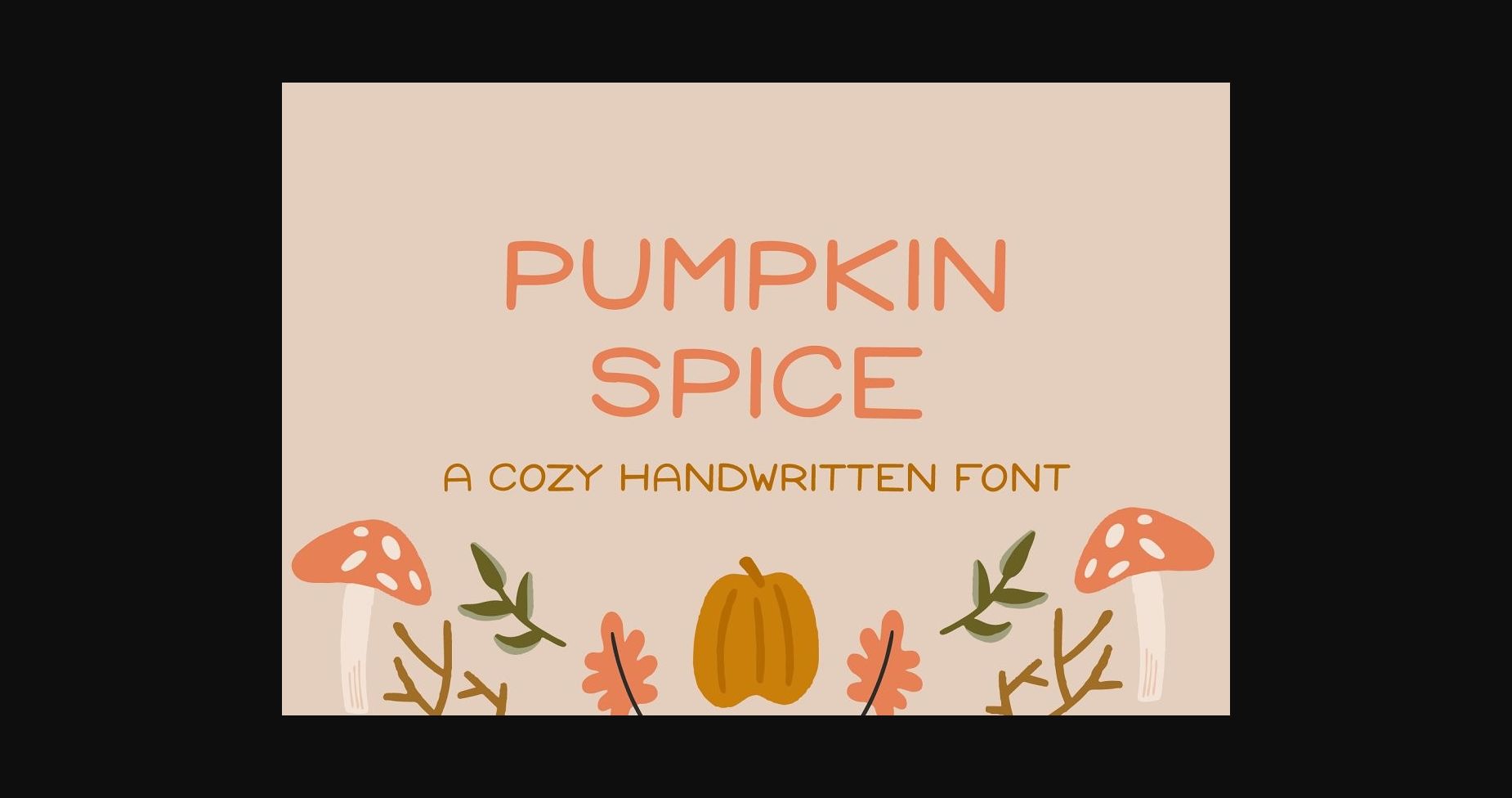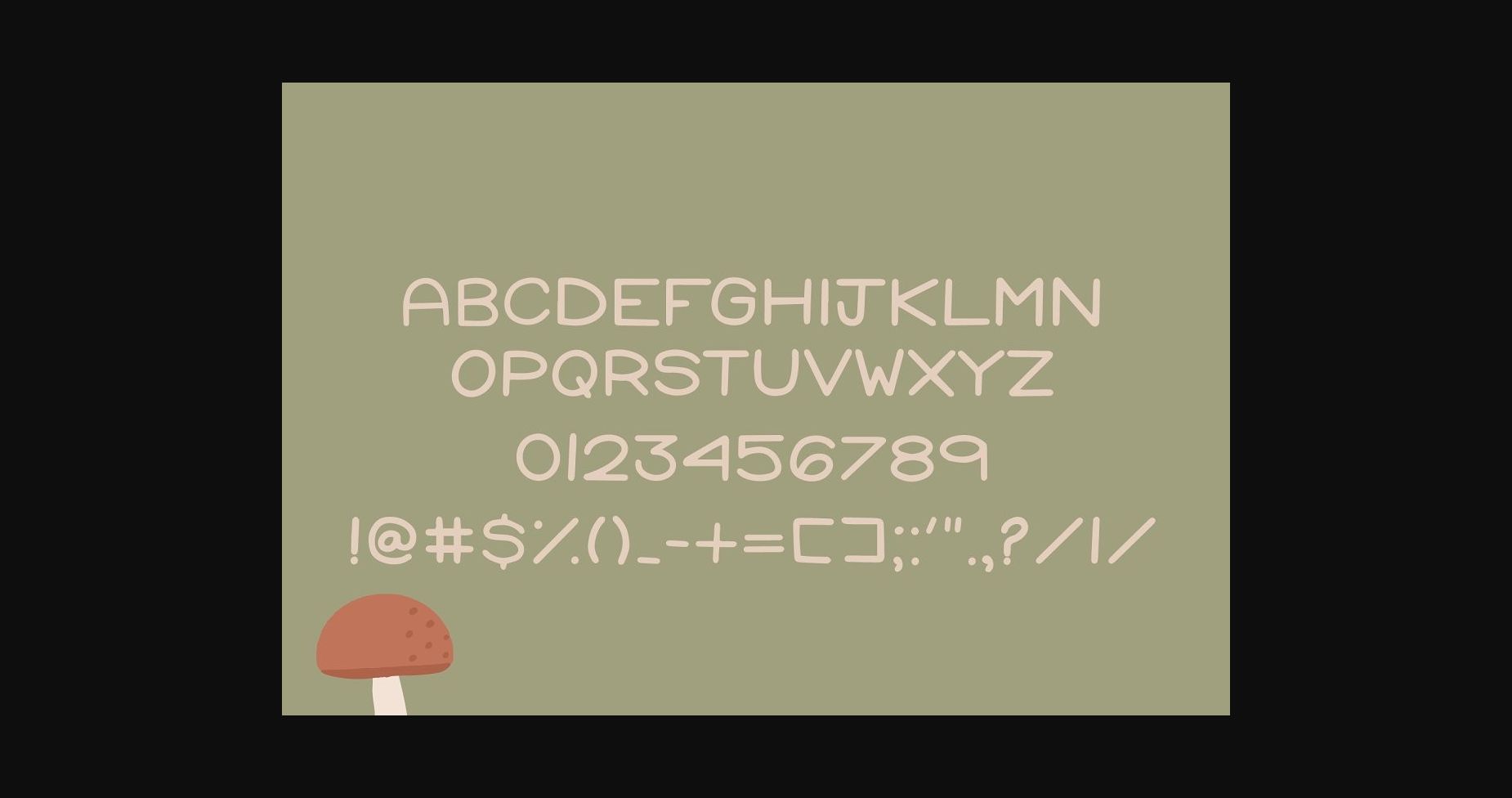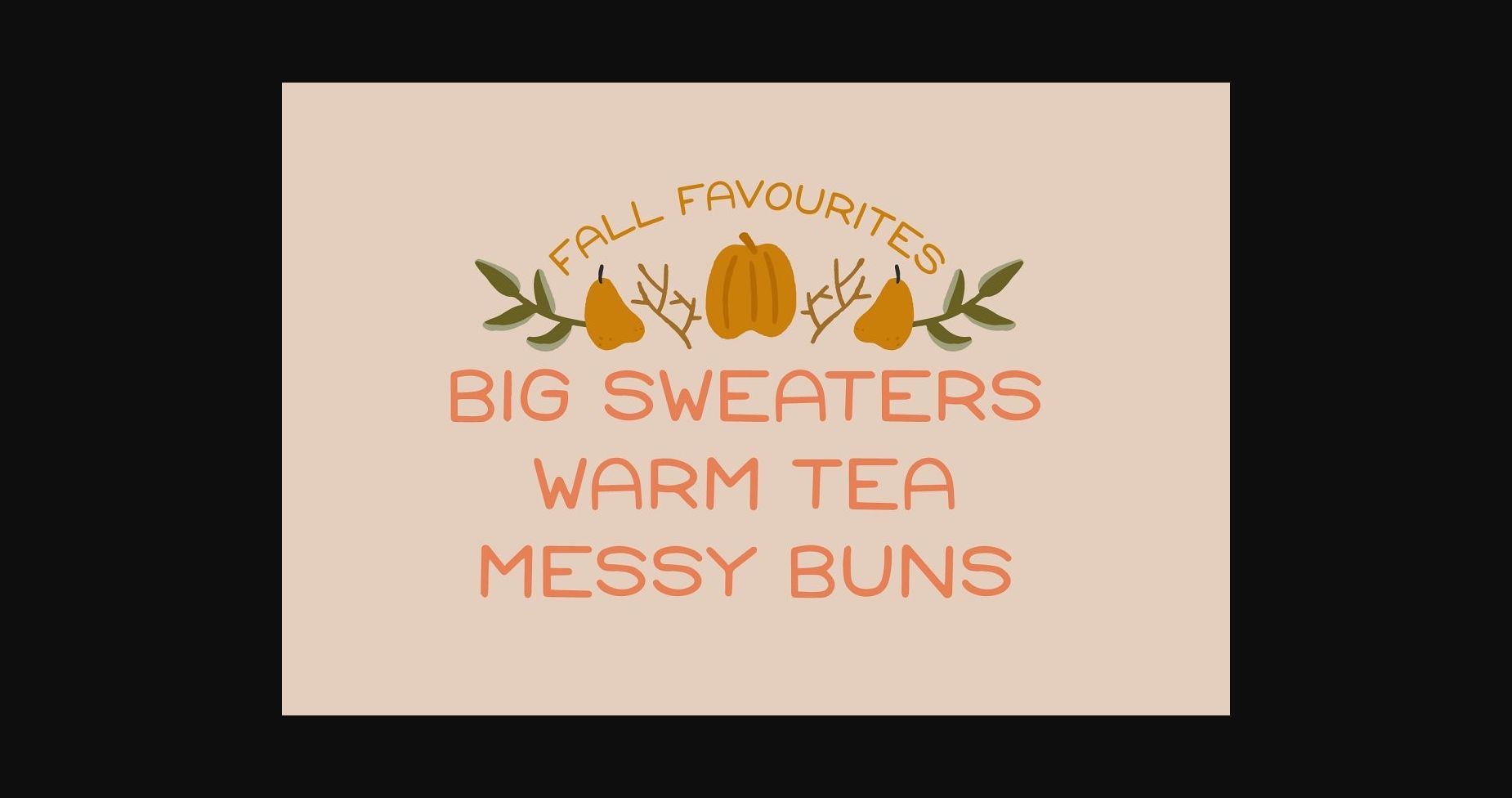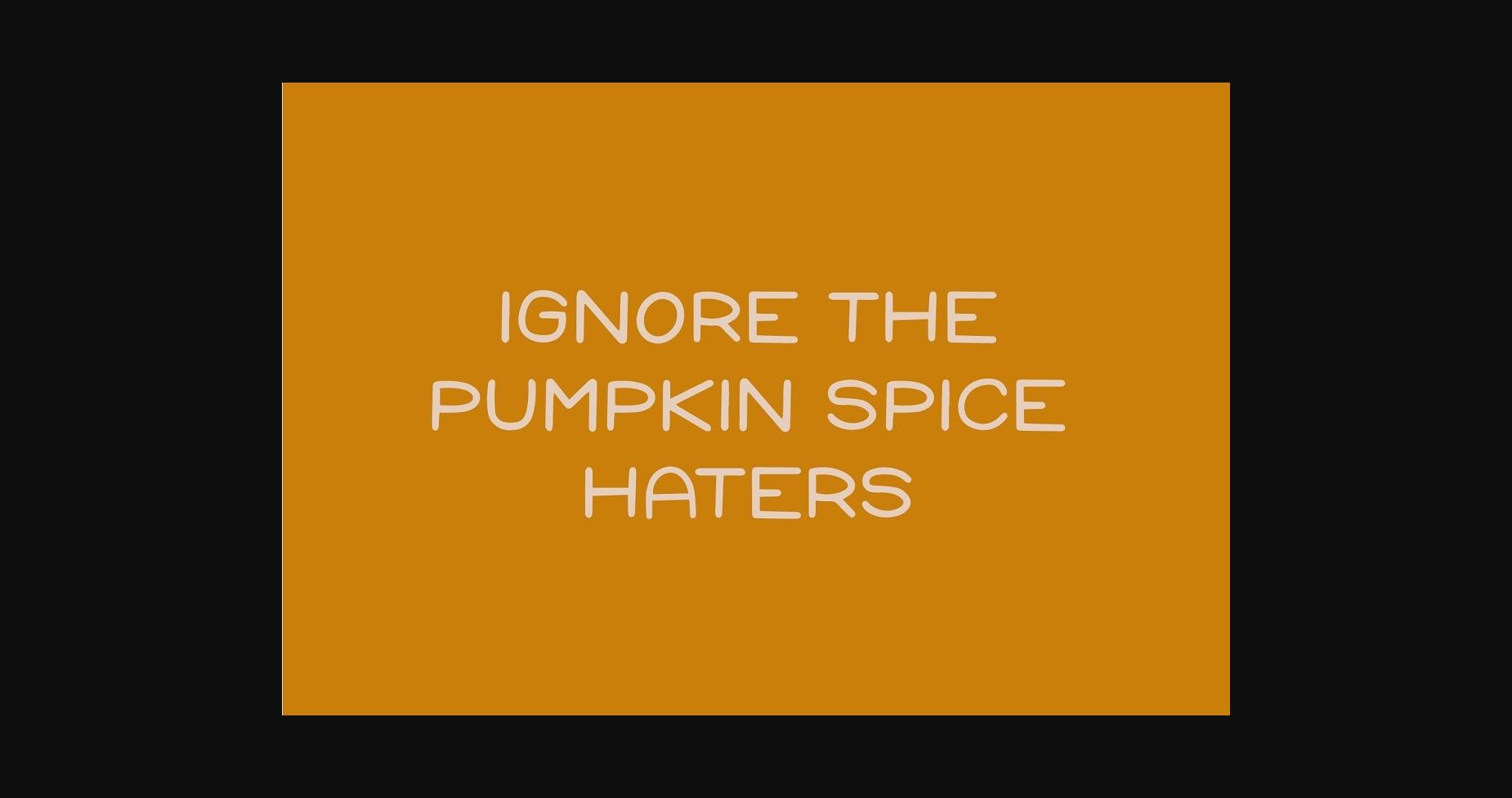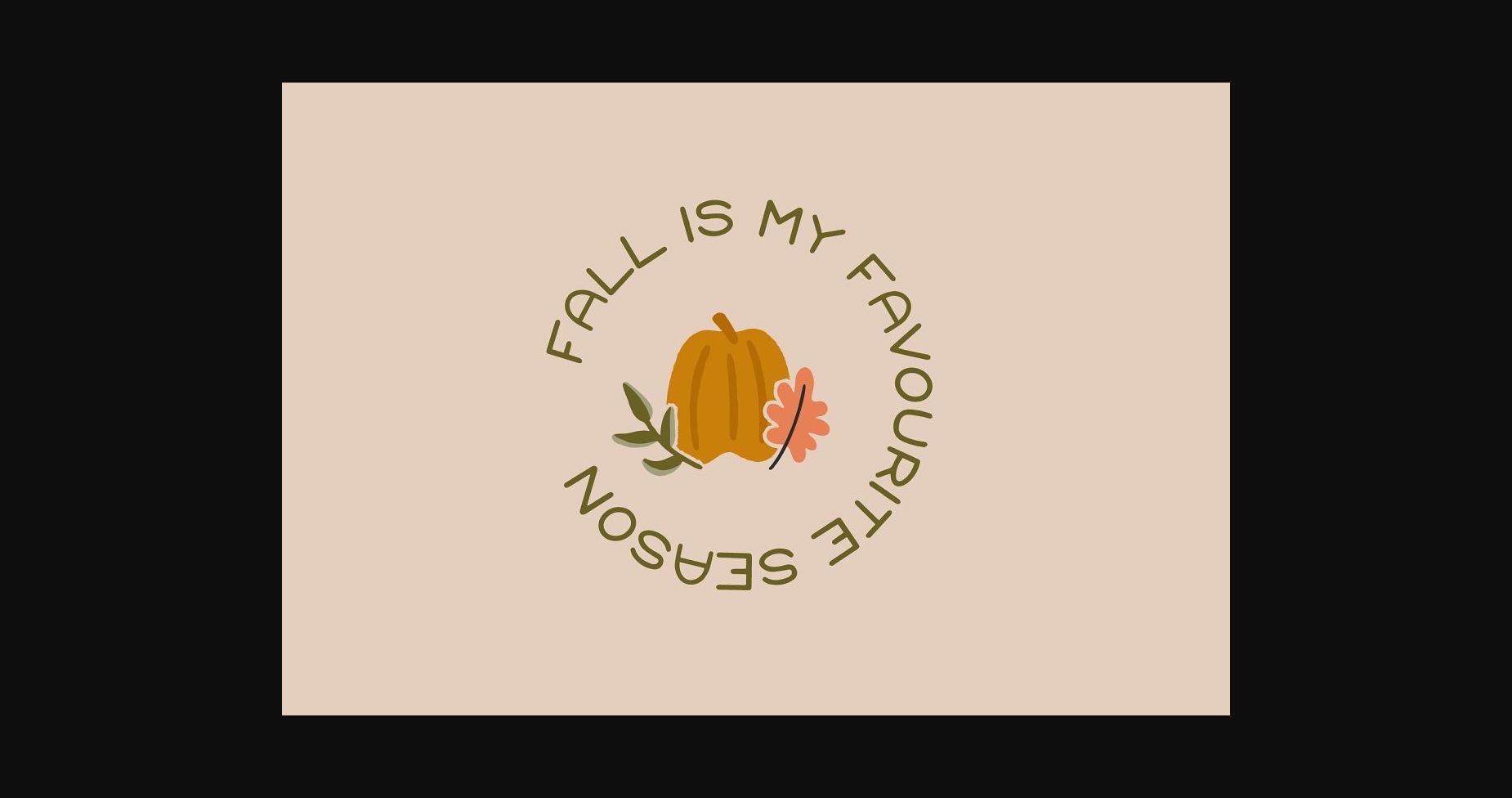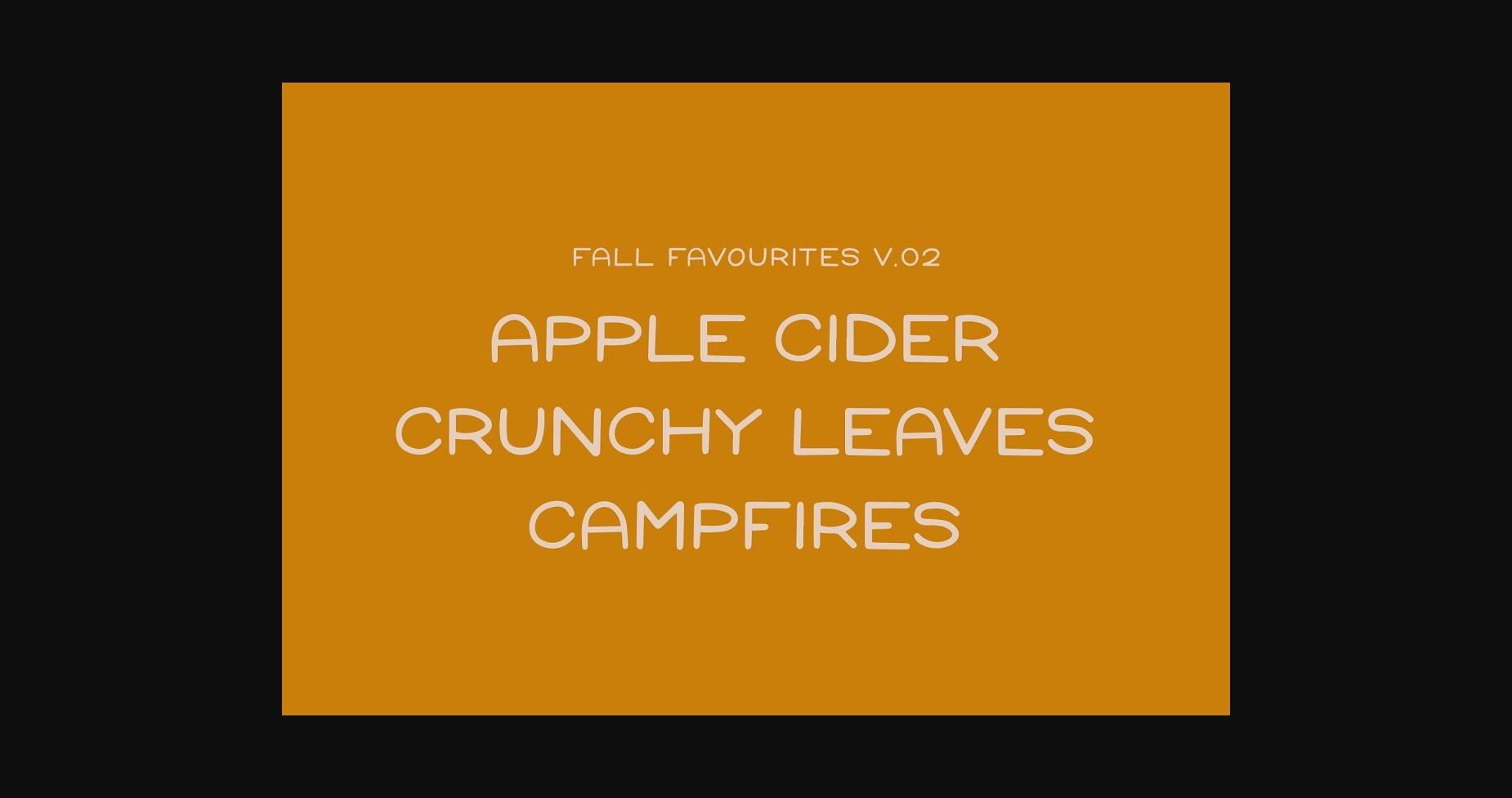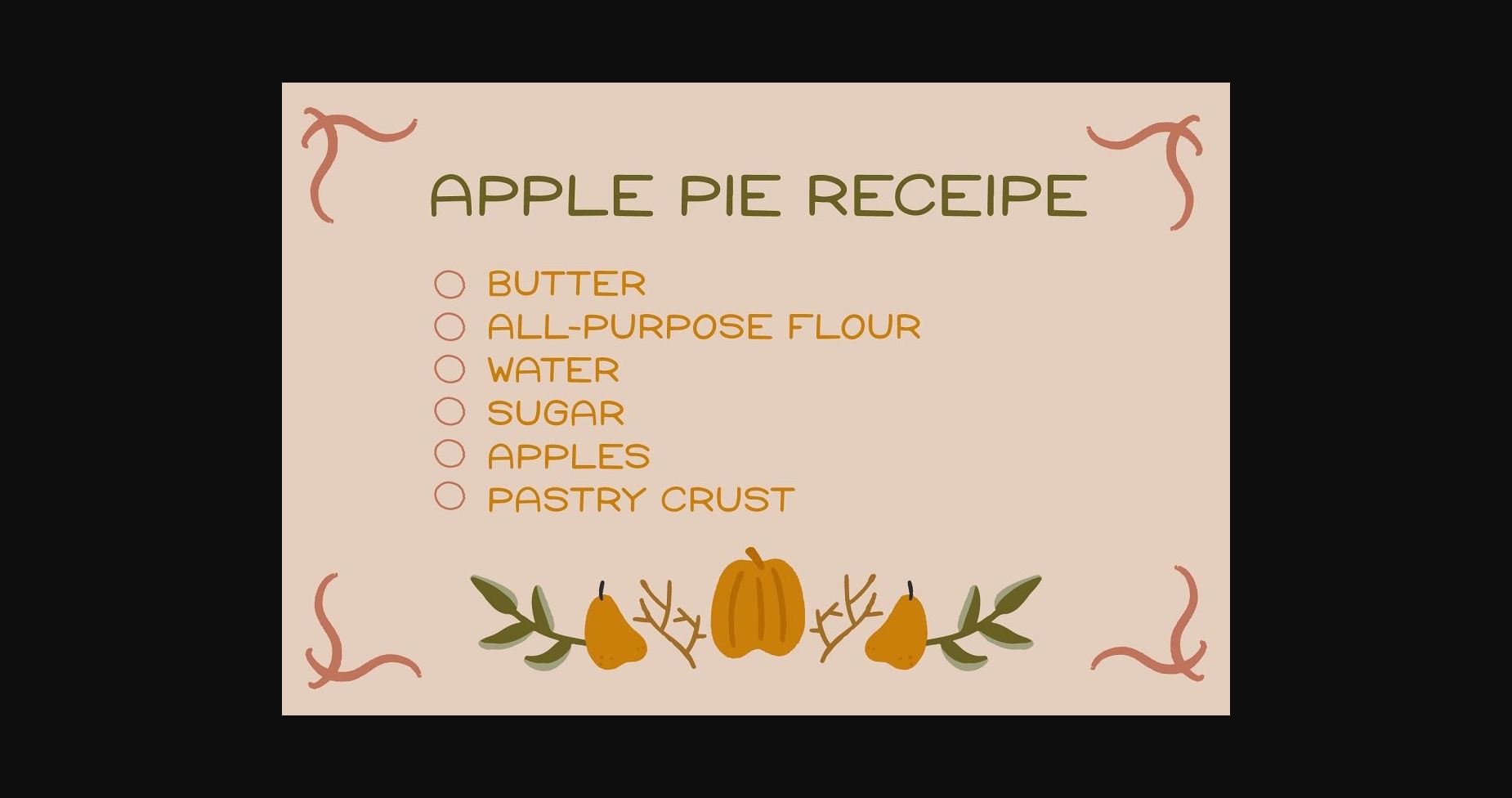
About Pumpkin Spice Font
Pumpkin Spice is a playful handwritten font that is perfect for adding a personal touch to your next project.
Pumpkin Spice is a handwritten UPPERCASE simple and bold display font. Pumpkin Spice sans-serif display font works great for creating logos, quotes to share on Instagram, social media, and more! Please note the font only comes with what you see on the second image. Punctuation and symbols are limited.